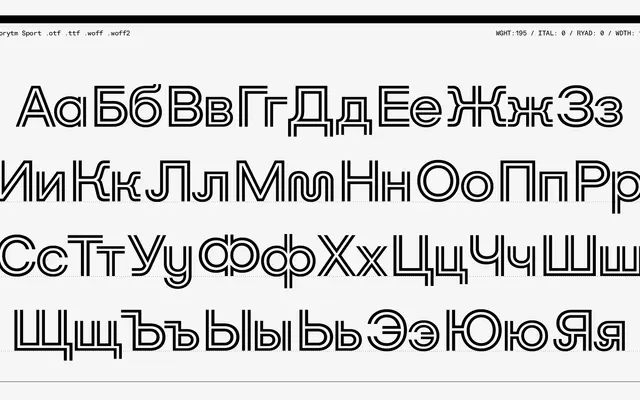
Algorytm Sport specimen from Interval Type
A single-weight inline display face drawn from the Algorytm collection, built around early American gothic letterforms with a sporting, high-energy character.
Part of a six-family collection rooted in early American gothics such as Times Gothic and Inland Gothic, Algorytm Sport distinguishes itself through lively inline lettering intended to add energy to layouts. The collection spans 51 styles across its six families, with Sport sitting at the expressive end alongside the reverse-contrast Algorytm Flip and the rounded Algorytm Soft. Coverage extends across Extended Latin and Cyrillic scripts.
Algorytm Sport is a display variant of a sans-serif collection inspired by early American gothics, distinguished by inline letterforms that give it a sporting, energetic character placing it firmly in display territory.